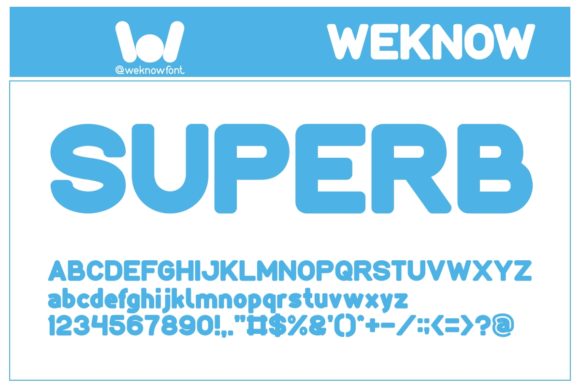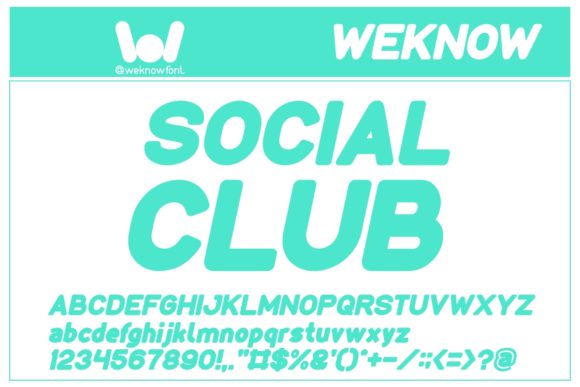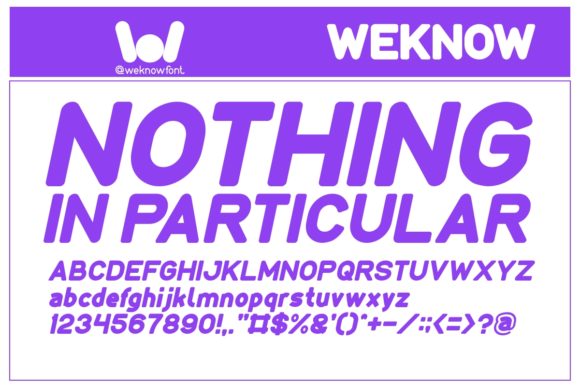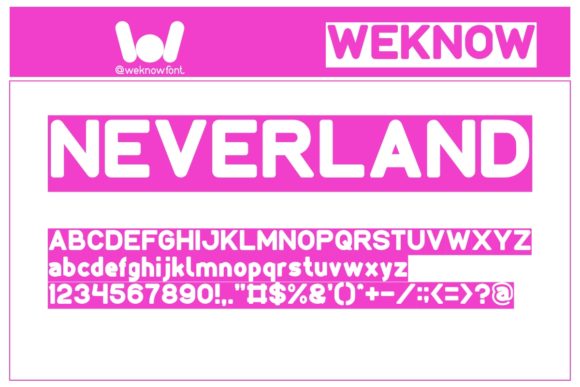
Introduction to Lmao Font
Have you ever been working on a creative project, pouring your heart and soul into it, only to realize that the perfect font is missing? That’s when the excitement and frustration kick in – the moment when you wish you had the perfect font to elevate your design. This is where the Lmao Font comes in – a simple yet bold display font that can be the game-changer you’ve been searching for.
Whether you’re a seasoned designer or a hobbyist, the Lmao Font is a valuable addition to your design resource arsenal. Its high-quality design and versatility make it perfect for a wide range of creative projects, from crafting and digital designing to presentations and greeting card making. Plus, with its transparent background, you can easily customize it to fit your project’s unique style.
Key Features of Lmao Font
- High-quality, vector-based font design suitable for various creative projects, including digital art and graphic design.
- Includes a range of unique characters and glyphs, adding a touch of personality to any design project.
Honest Review: Lmao Font
Here’s what works well: ✨ The font is incredibly versatile, with a modern and quirky aesthetic that’s perfect for a wide range of applications, from branding to digital graphics. The transparent background feature is also a major plus, allowing for seamless integration into any design.
- High-quality design with a unique, modern aesthetic
That being said, there are some limitations to consider: ⚠️ The font library is relatively small, which may limit its use in more extensive design projects. Additionally, some users may find the font’s quirky nature to be a bit too playful for certain applications.
Overall, I’m impressed with the Lmao Font. While it may not be the most extensive design resource, it’s a great addition to any designer’s toolkit. With its unique aesthetic and transparent background feature, it’s sure to elevate any creative project.
Lmao Font is a versatile design resource that can be used in a variety of creative projects, including social media graphics, posters, and business cards. It’s also a great choice for designers who want a free, high-quality font to use in their designs. With its unique style and transparent background, Lmao Font is a great addition to any design library.